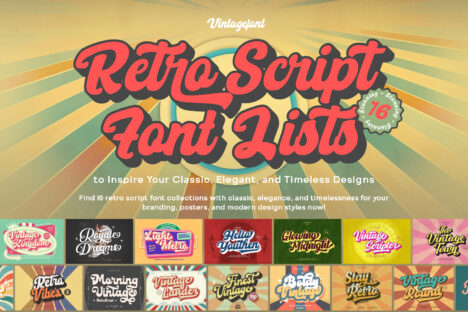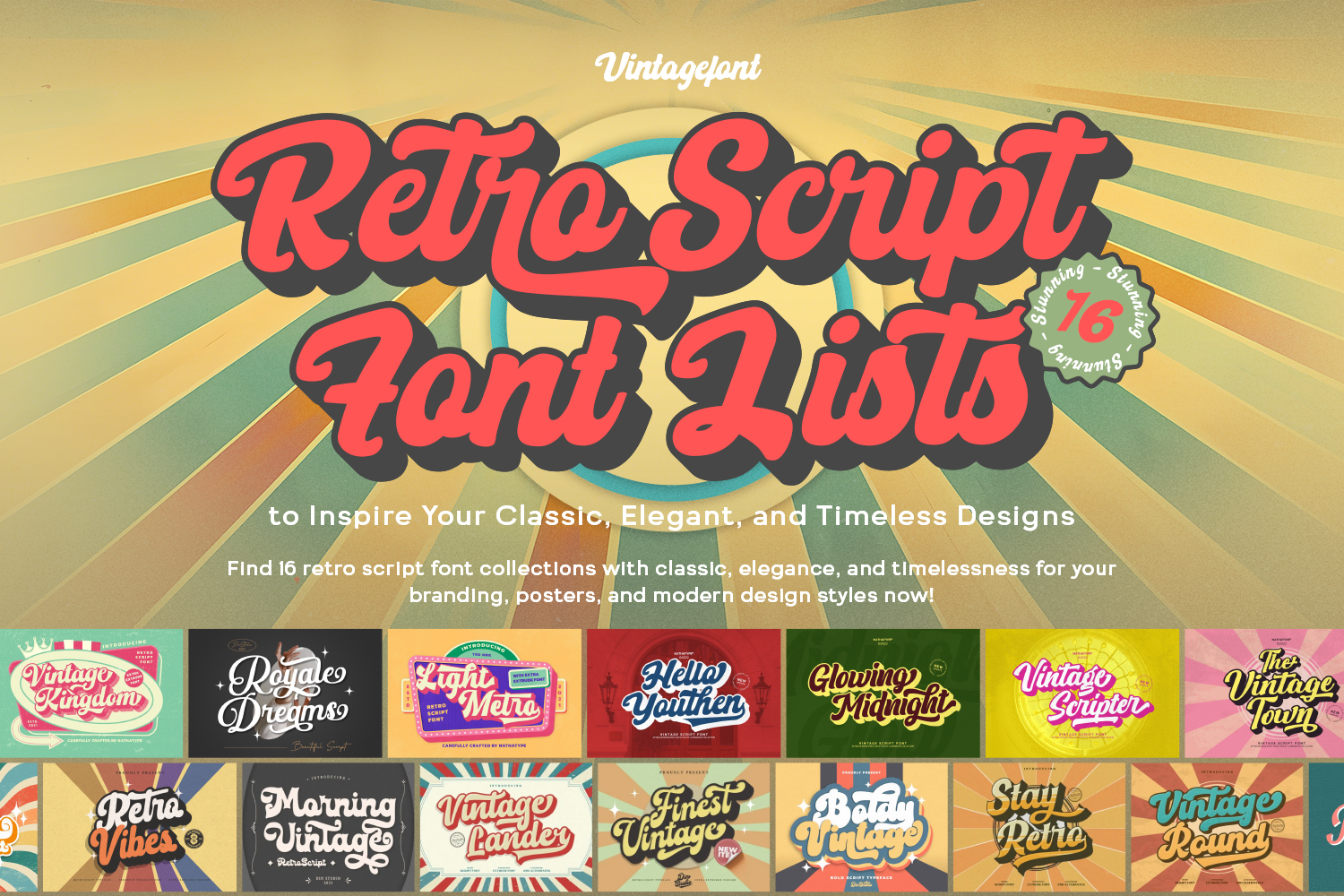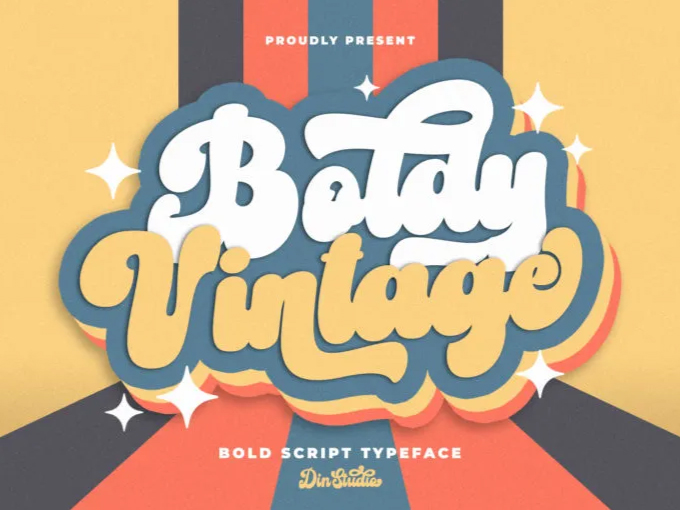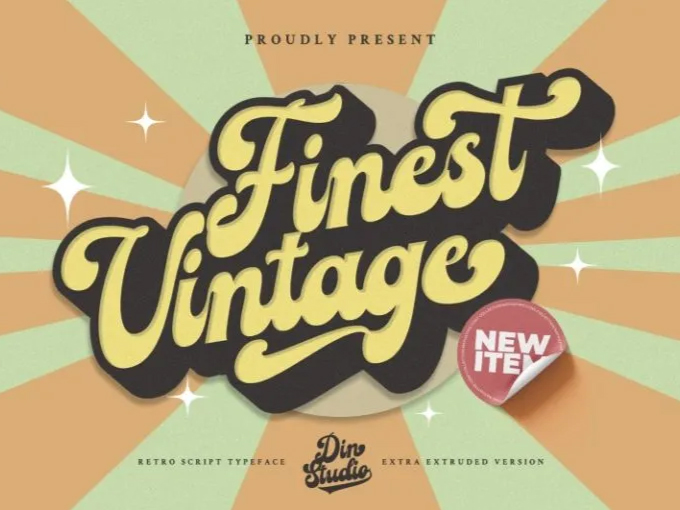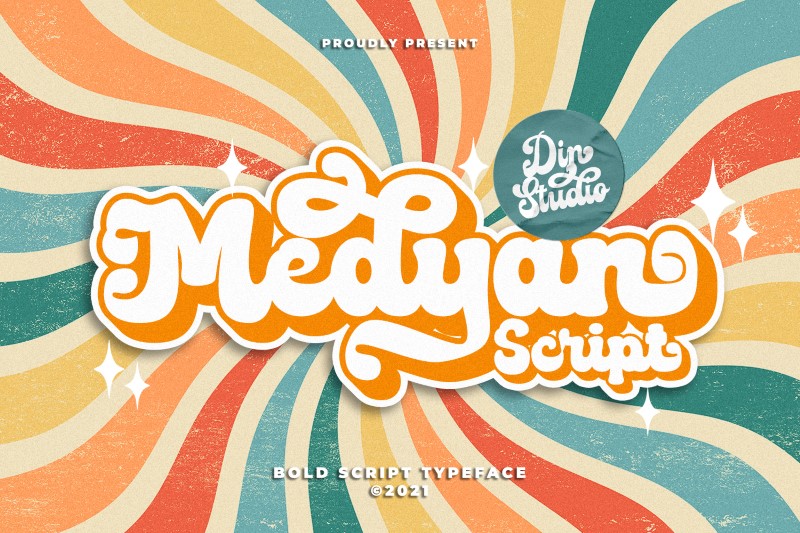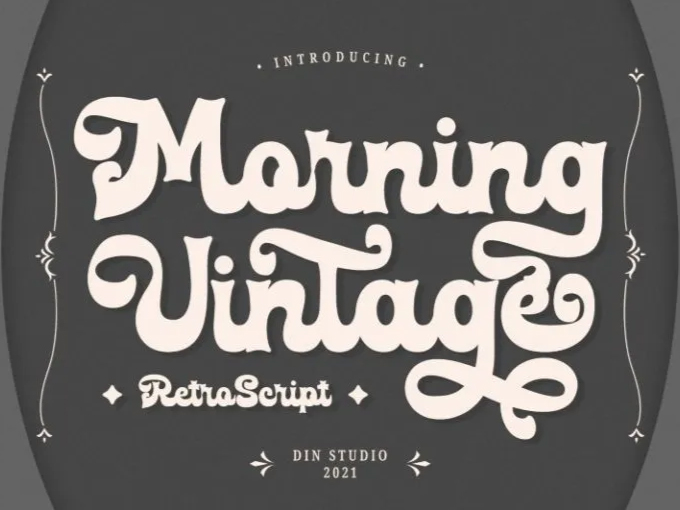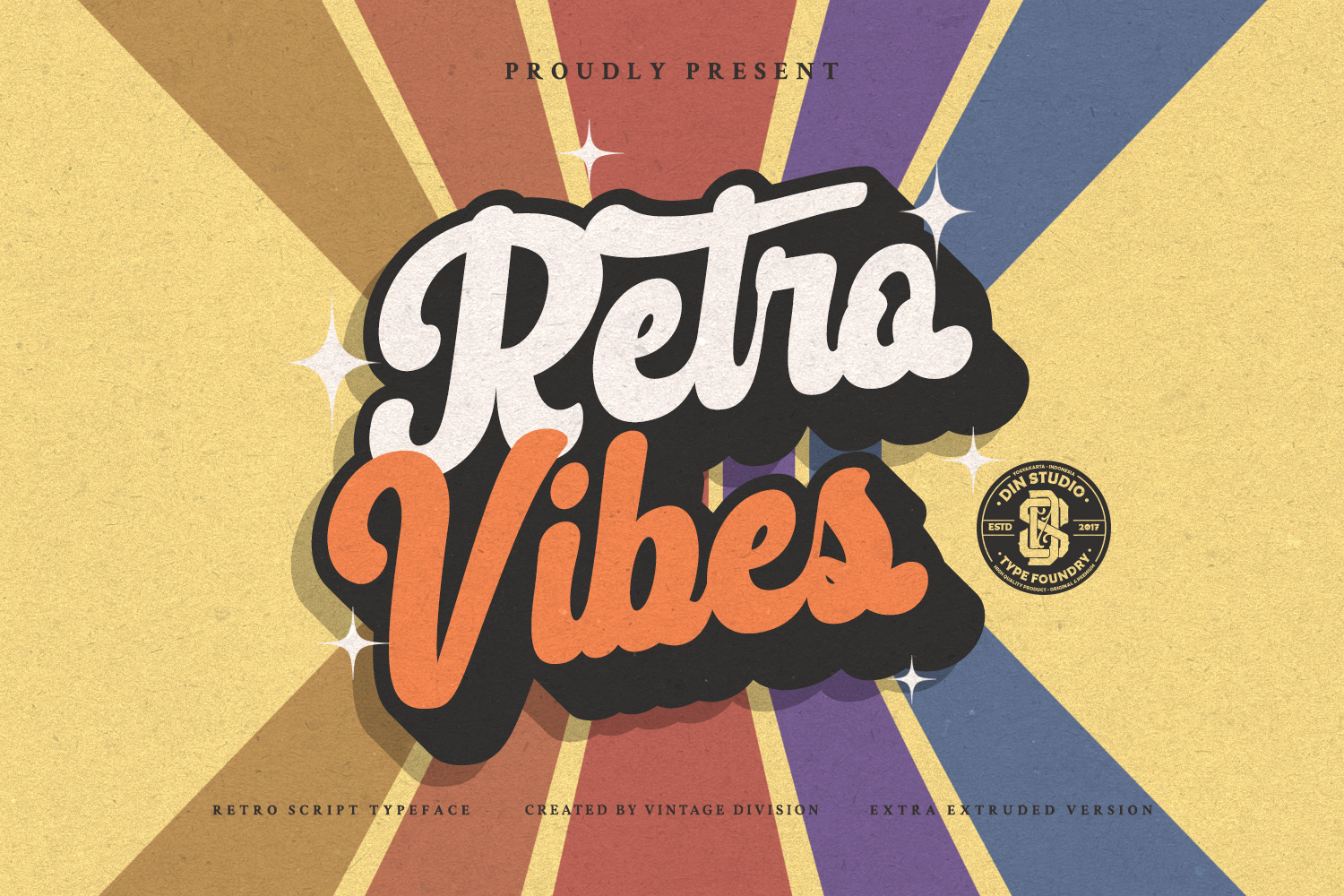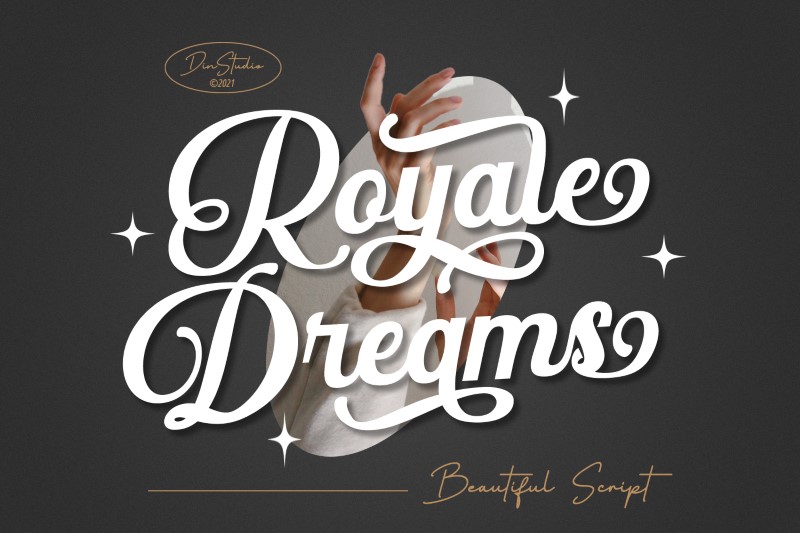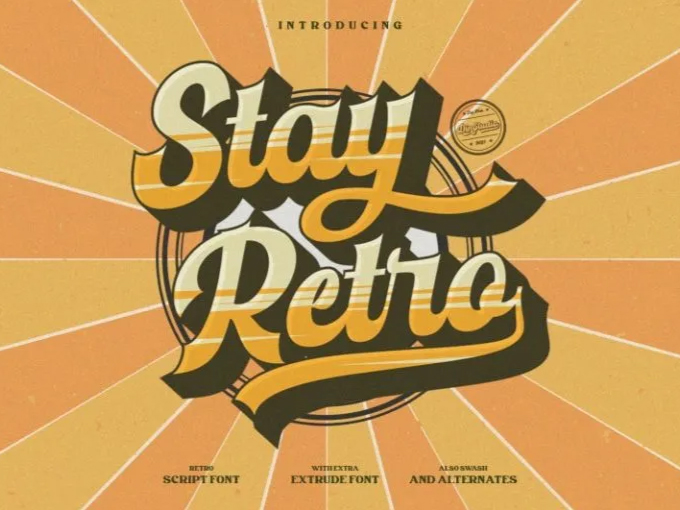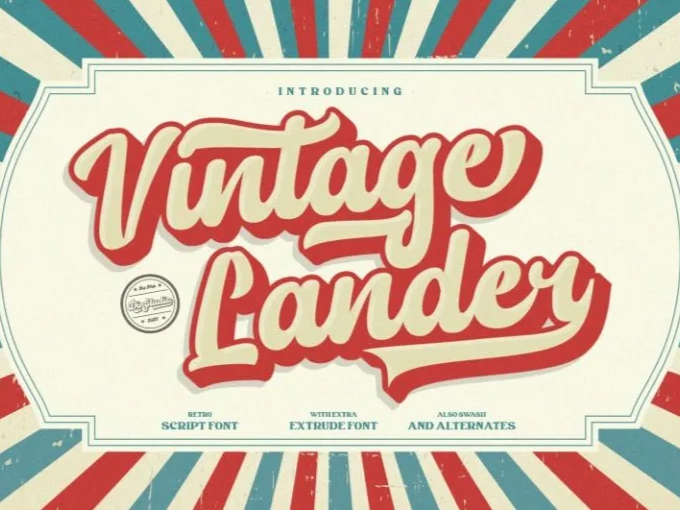
16 Stunning Retro Script Font Lists to Inspire Your Classic, Elegant, and Timeless Designs
Fonts are one of the most important parts of a design. Choosing the proper font will allow you to create artwork that is not only visually appealing but also professional and has a strong personality. Out of the various sorts of typefaces available, a particular type is becoming increasingly popular: the retro script font.
The style of this font has a unique look that combines handwriting swashes with a warm, classic touch. This distinct character can give it an elegant, nostalgic sense while being relevant to a variety of modern design needs. That is why a retro script font is commonly used in logos, posters, product packaging, and social media posts. Aside from making it more appealing, this typeface can provide a unique visual identity.
So, if you are looking for font inspiration, the following are 16 top retro script font collection you can use to make your design look appealing, timeless, and outstanding!
Why are Retro Script Fonts Popular?
Graphic design trends are constantly changing, but there is one style that never really goes away: retro style. Nostalgia is the main reason why this style is always in demand. Retro script font is the perfect choice to bring a warm, elegant, and characterful classic vibe.
This type of font can make the design feel more personal, authentic, and not rigid. For example, a coffee shop logo with a touch of retro script font immediately gives a warm, friendly, and inviting impression. This is the power of retro fonts: simple yet capable of building emotion and closeness.
Besides, retro script fonts are easily adaptable. You can use a retro script font in branding, musical posters, product packaging, invitation designs, and more. This flexibility allows the font to be a popular choice for graphic designers, business owners, and content creators who want a standout type of font.
The Recommendation of 16 Best Retro Script Fonts
Boldy Vintage
retro script font
Boldy Vintage is a bold script font that presents bold typography with a playful and modern style. Using a bubble style with cheerful swashes, this font looks fresh and energetic. Boldy Vintage is perfect for logos, titles, menus, posters, and social media content. This font features stylistic alternates with unique rounded shapes and ligatures with smooth curves. These features make this font look more natural and comfortable to read.
Vintage Round
Vintage Round features bold letters with sharp angles, strong outlines, and the characteristic thick strokes of a bubble font. This font offers a variety of stylistic sets with a strong retro vibe. Each letter variation brings a distinctive touch of the classic era, making the design appear more expressive. Added with retro swashes in various unique forms, the typography looks even more vibrant, stylish, and attention-grabbing. Vintage Round is a retro script font that is ready to enrich various creative projects and global branding with its unique and classy character.
Vintage Lander
retro script font
Next on this list is Vintage Lander. This font has a large size with a solid shape that makes it look strong and full of character. The bold outline and thick swashes create an impression of a classic bubble font. This effect makes each of the letters look like it stands out and gives your design a new dimension. Vintage Lander is perfect for quotations, packaging, T-shirts, and various other design needs.
Stay Retro
With its unique bubble script style, Stay Retro brings a street vibe while being playful. This font is suitable for various design needs, both personal and professional. Stay Retro is perfect for charming print quotes, standout packaging, or eye-catching t-shirt designs. Additionally, it is perfect for titles, logos, menus, and even social media graphics. Every curve of the letters gives a fresh, energetic, and character-filled impression. This retro script font presents a swash that curves like an infinity symbol, adding beautiful detail, and is complemented by an extrude style for a captivating retro 3D effect.
Royale Dreams
retro script font
The next retro script font you need to try is Royale Dreams. It is an elegant script typeface with a mesmerizing handwriting touch. This font is suitable for creating titles, branding texts, and more. The sweet style and cute impression of the Royale Dreams font make it perfect for various creative designs, be they digital or print materials. Besides, Royale Dreams offers stylistic alternates and exquisite swashes that make it even more beautiful, dynamic, and classy.
Retro Vibes
RetroVibes Script 01
Retro Vibes is a bubble-style script font with a handwritten touch that draws inspiration from 1960s design and illustrations. The scratchy halftone gradient effect enhances this font’s originality and adds a classic retro flavor. Available in both regular and italic forms, Retro Vibes adds a unique vintage vibe to logos, name cards, and other creative projects. Furthermore, this font includes a stylistic set to improve the letter and a 3D retro extrude effect. This font’s italic style makes it suitable for a wide range of creative applications.